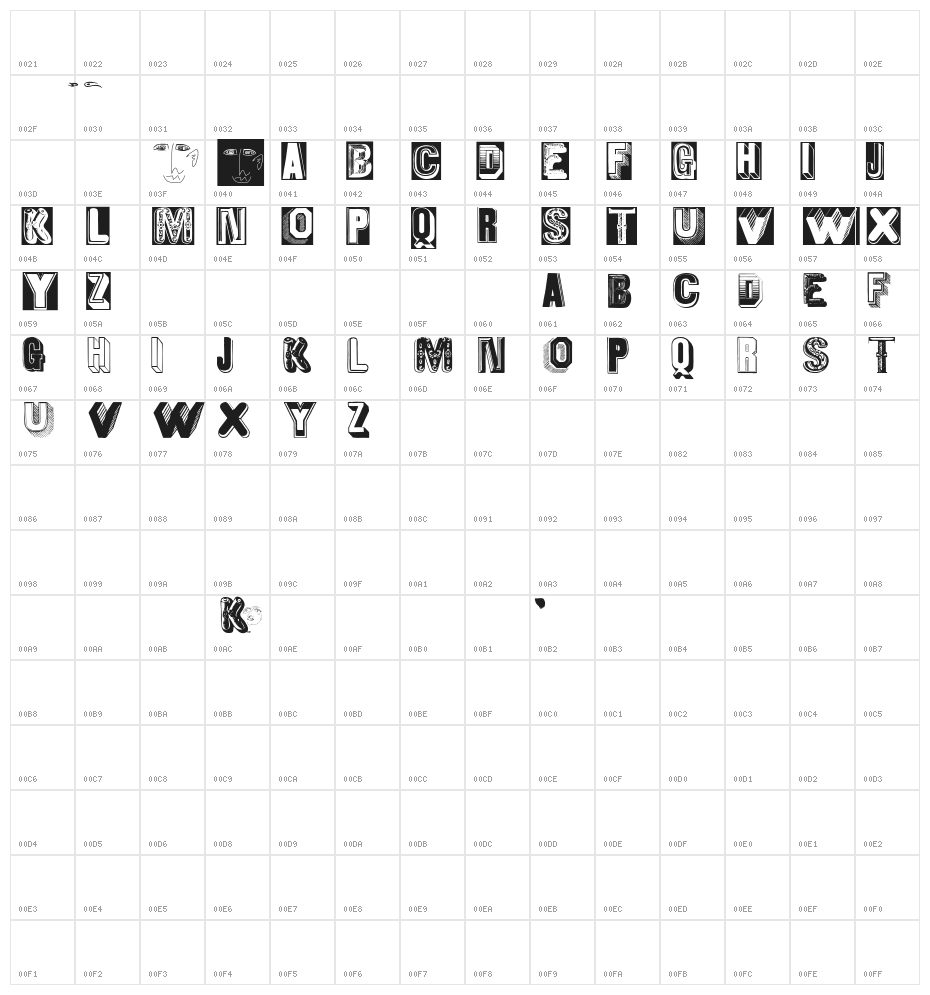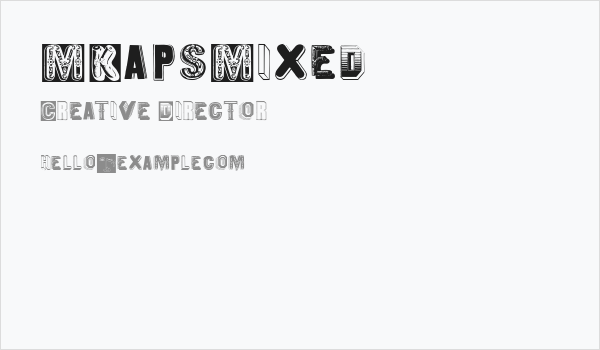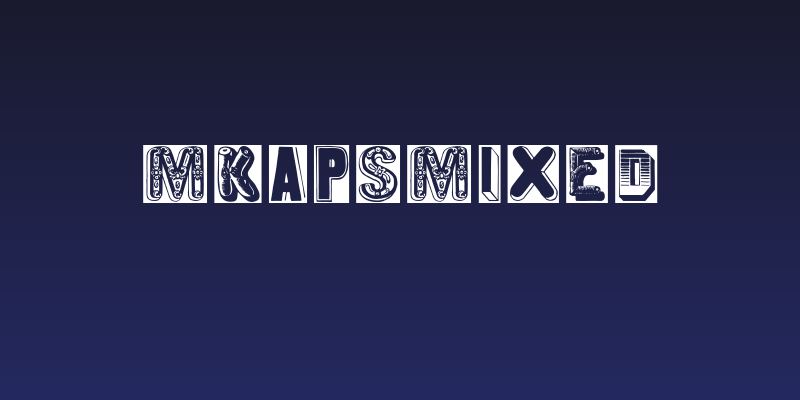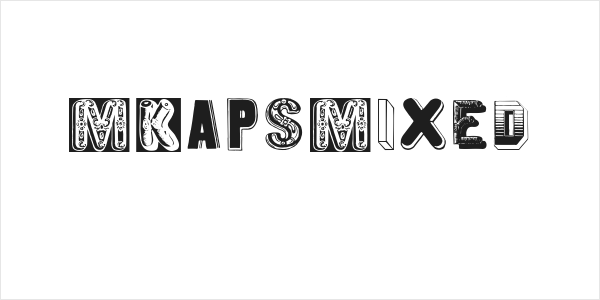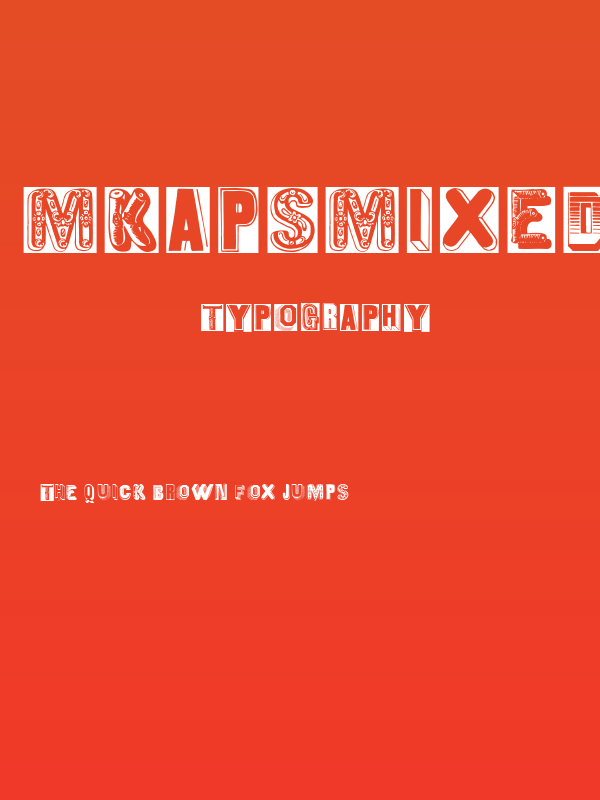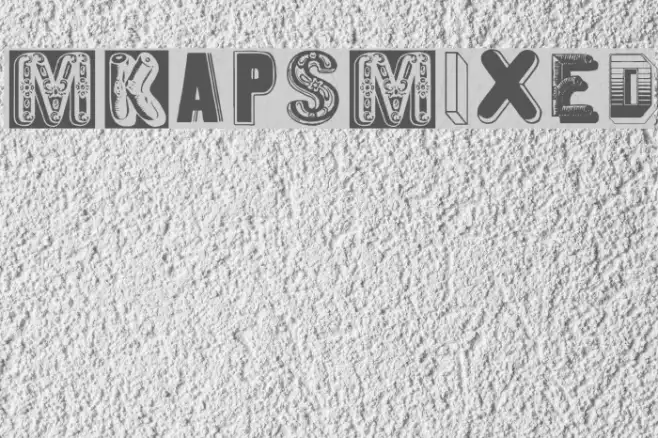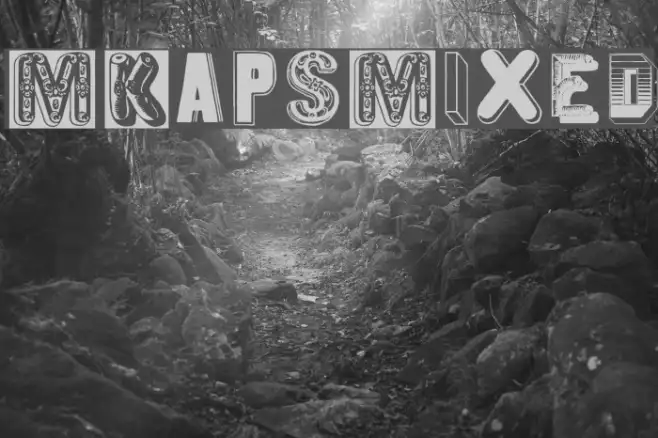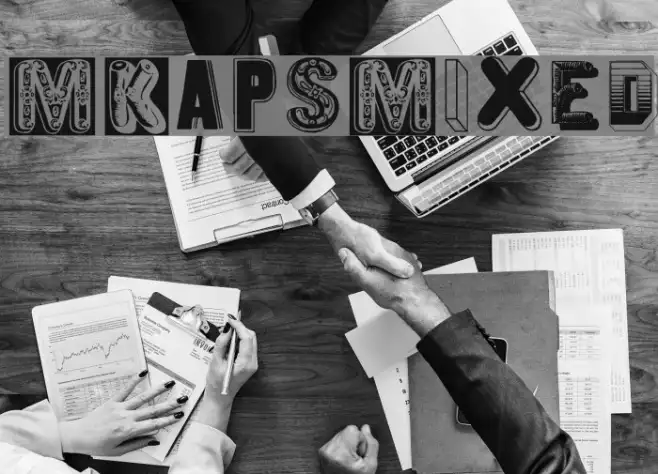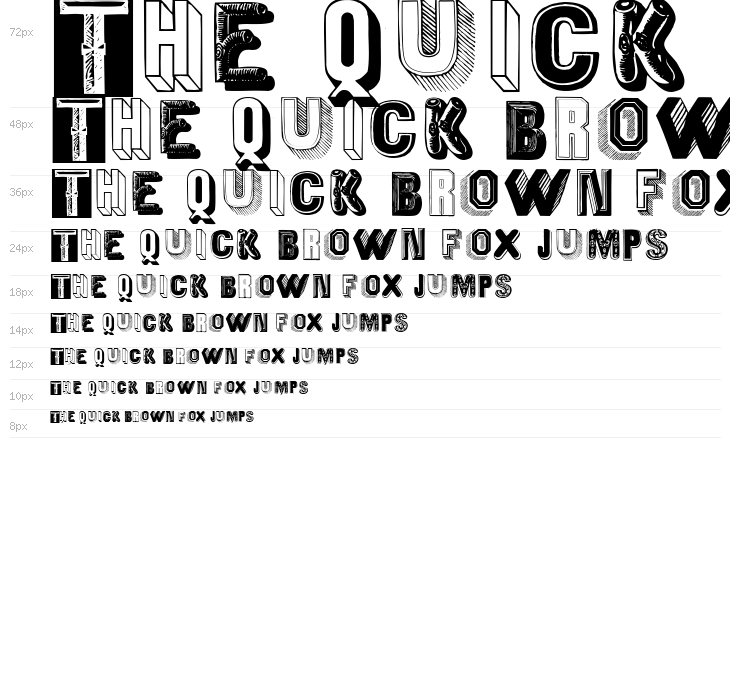
MKapsMixed Font
MKapsMixed Description
This font is a highly decorative and eclectic mix of styles, featuring bold and intricate designs for each letter. Each character is uniquely styled with various patterns, textures, and embellishments, creating a visually striking and artistic appearance. The uppercase letters are particularly ornate, with some incorporating shadow effects, stripes, and geometric patterns. This font is designed to capture attention and make a statement, making it ideal for creative and artistic projects.